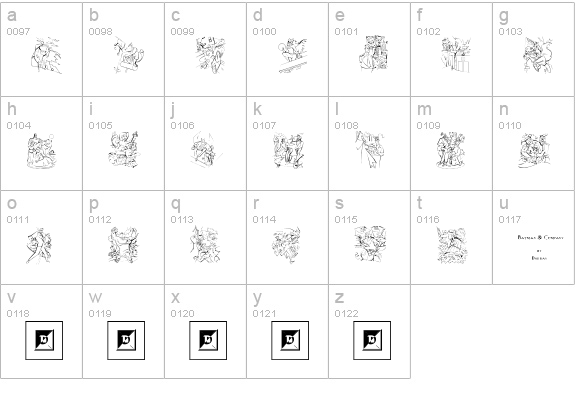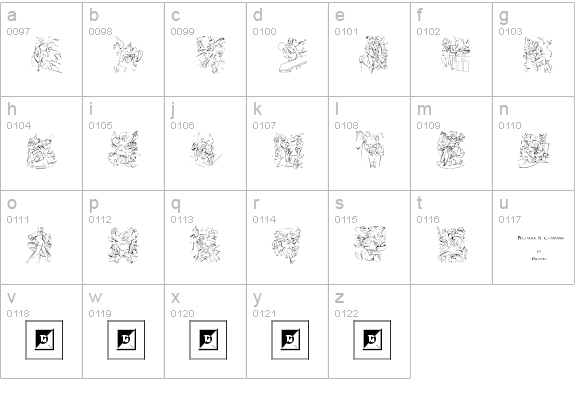
Batman and Company font is a stylish and versatile typeface that exudes a sense of mystery and sophistication. This unique font is perfect for projects that require a touch of darkness and intrigue, making it ideal for posters, logos, and branding materials. The sleek and modern design of Batman and Company font is sure to make your text stand out and leave a lasting impression on your audience. Best of all, Batman and Company font is completely free to download at FontsMarket.com. This means that you can add this captivating font to your collection without having to spend a dime. Don't miss out on the opportunity to enhance your designs with this striking and enigmatic typeface – download Batman and Company font today and unleash your creativity!